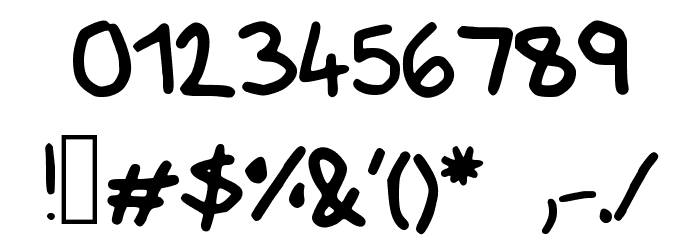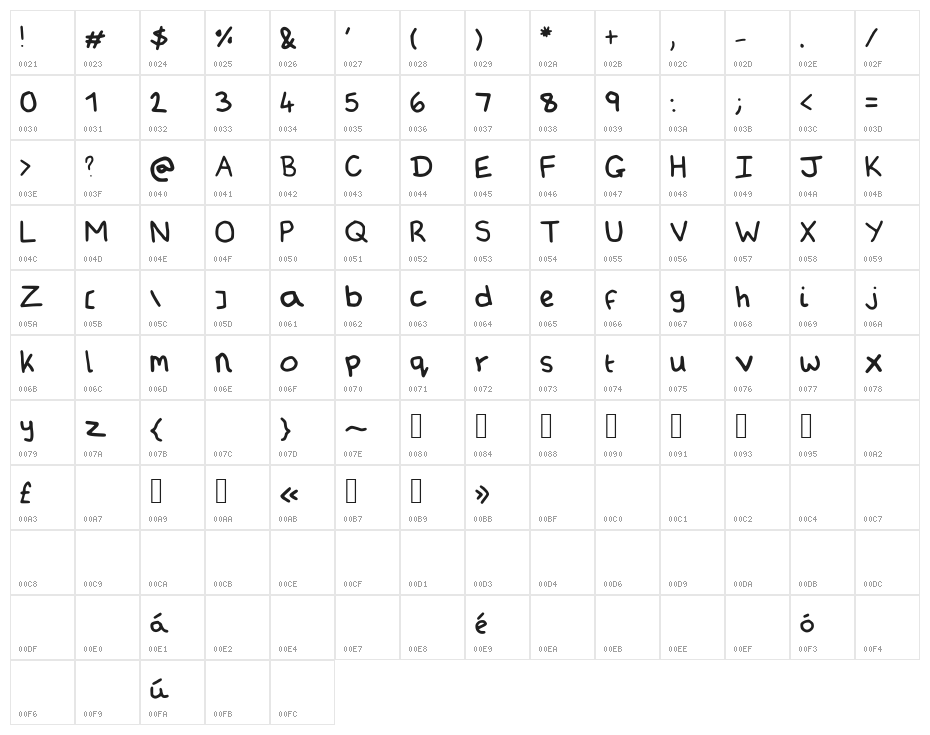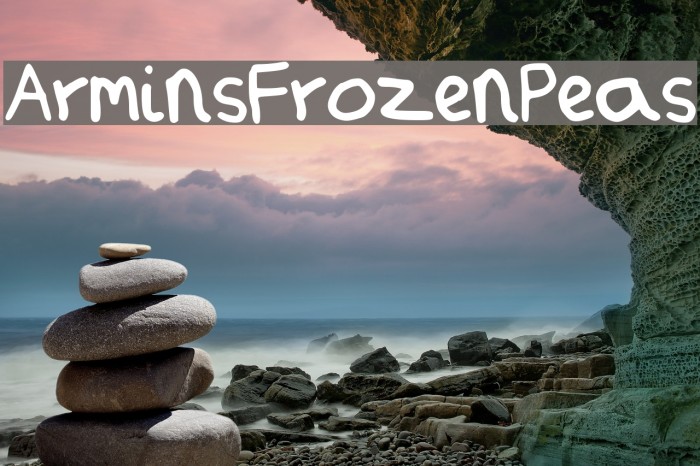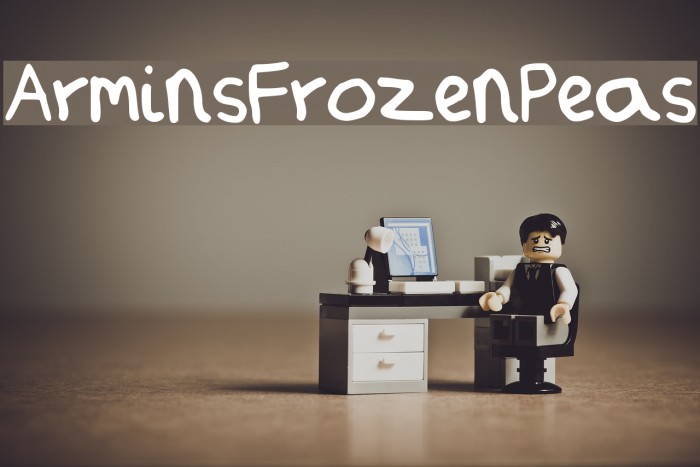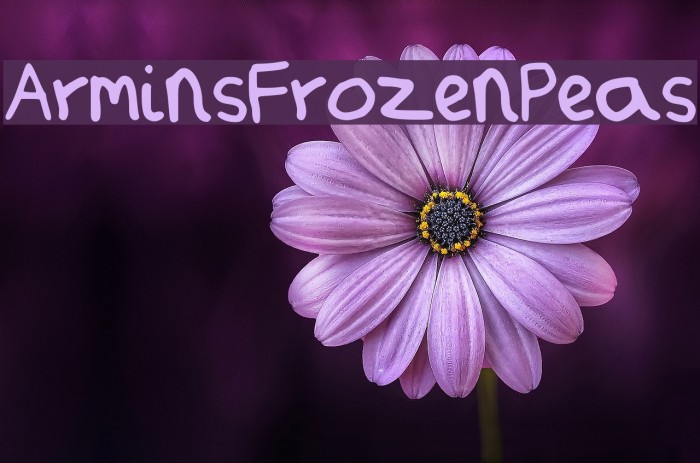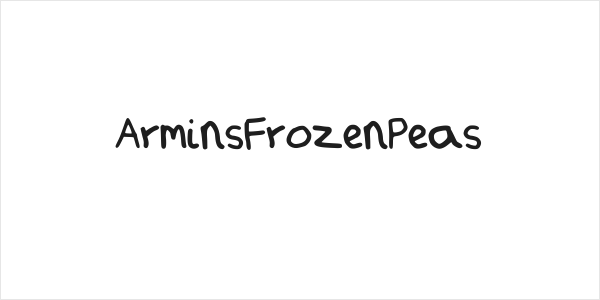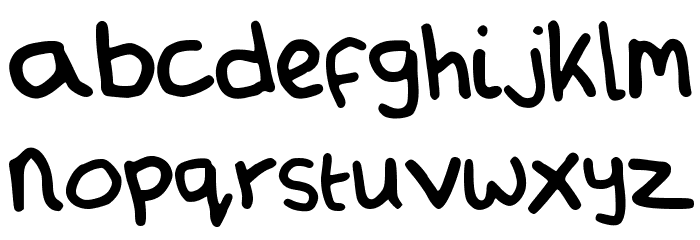
ArminsFrozenPeas Font
ArminsFrozenPeas Description
This font features a playful and casual handwritten style, characterized by its rounded and slightly irregular letterforms. The strokes are consistent in width, giving it a uniform appearance, yet the slight variations in each character add a touch of individuality and charm. The uppercase and lowercase letters maintain a cohesive look, while the numbers and special characters complement the overall aesthetic. This font exudes a friendly and approachable vibe, making it suitable for informal and creative projects.
| Proposed Projects | Ideal for children's books, greeting cards, casual branding, and social media graphics. |